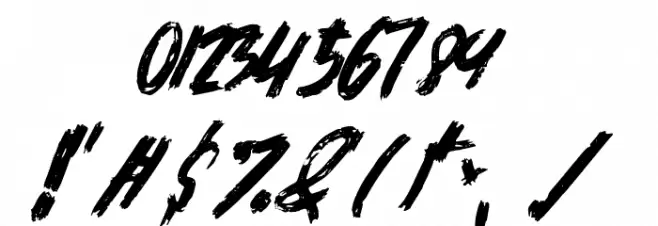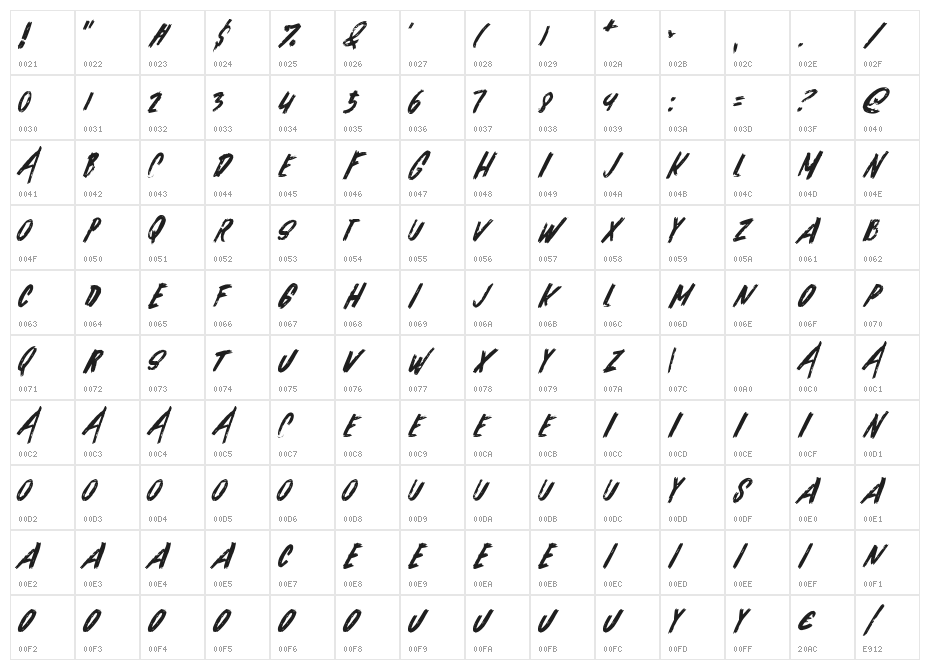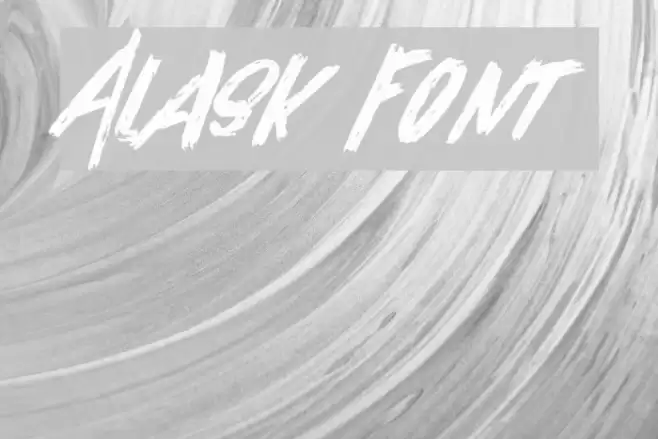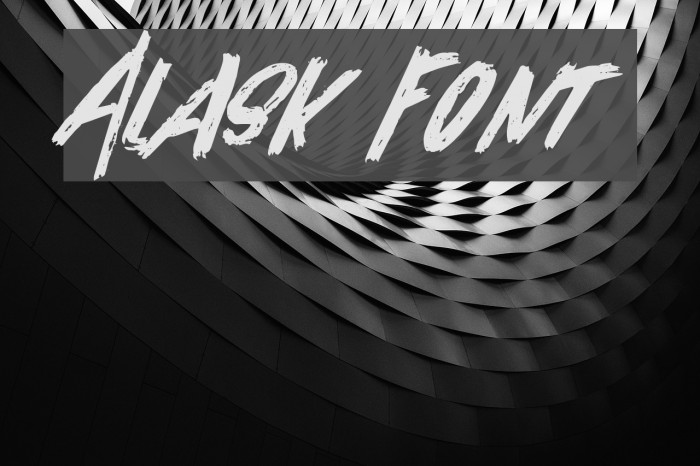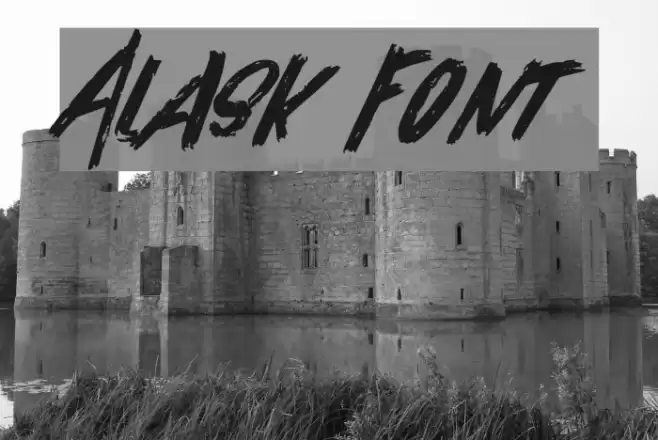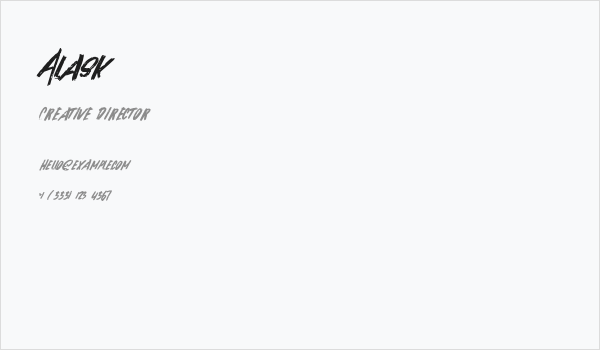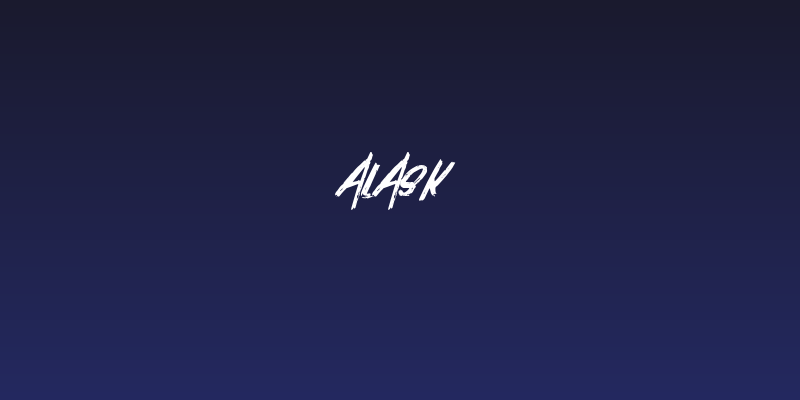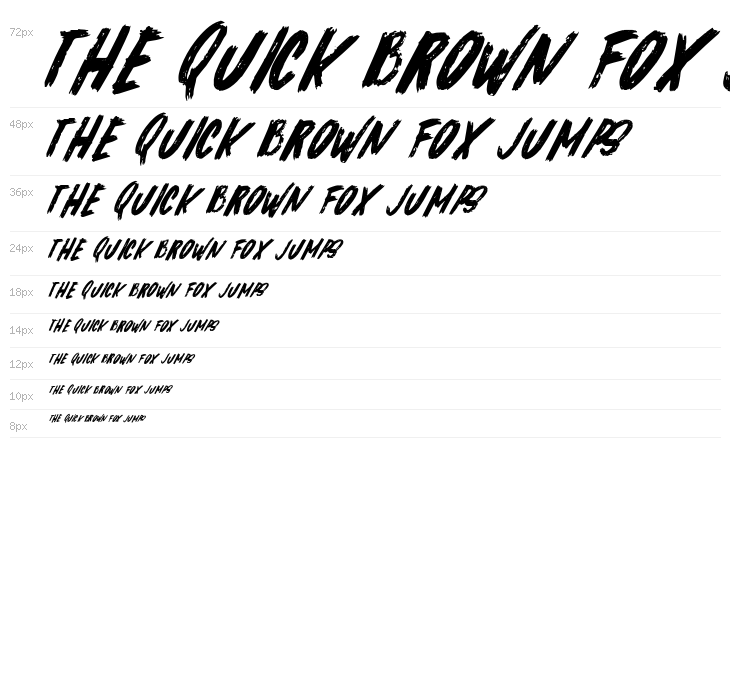
Alask Font
Alask Description
This font features a bold, expressive style with a brush-like texture, giving it a dynamic and energetic appearance. The strokes are uneven and rugged, creating a sense of movement and spontaneity. The uppercase and lowercase letters maintain a consistent style, with exaggerated curves and sharp angles that add to its dramatic flair. The numbers and special characters are equally bold and maintain the same brush-stroke aesthetic, ensuring a cohesive look across all characters. This font is ideal for projects that require a strong visual impact and a sense of creativity.
| Proposed Projects | Ideal for posters, album covers, branding, and any project needing a bold, artistic touch. |